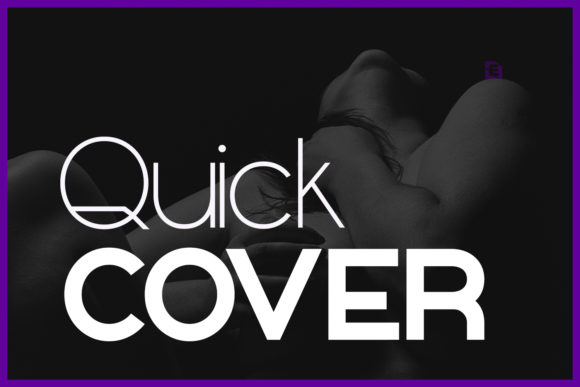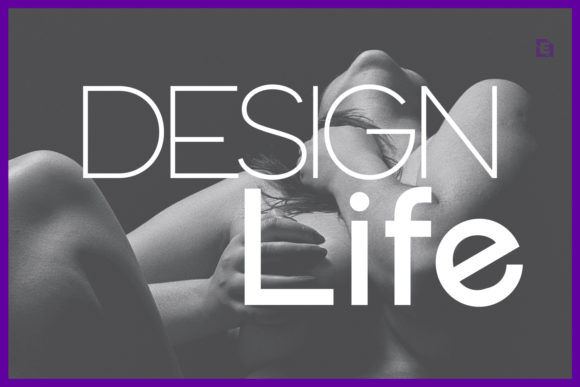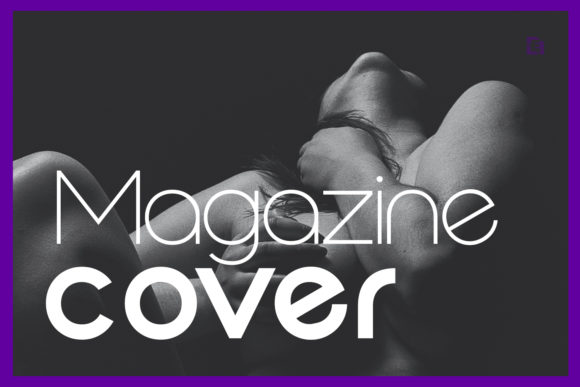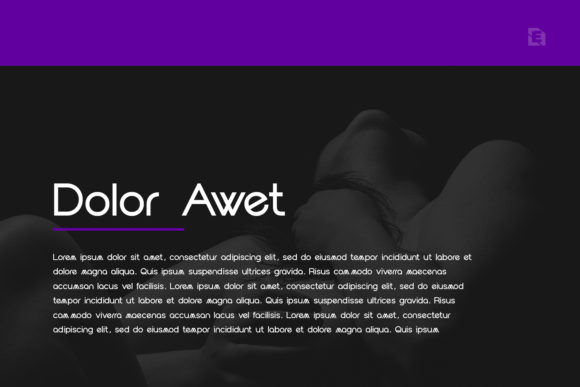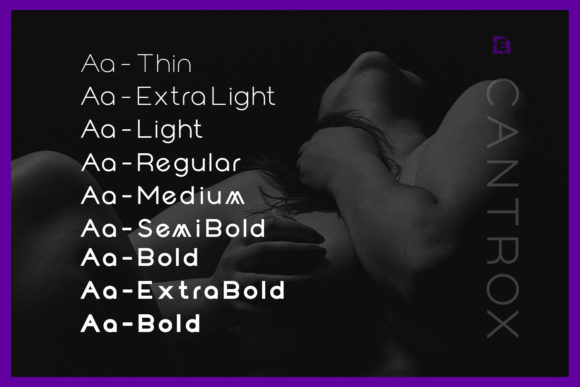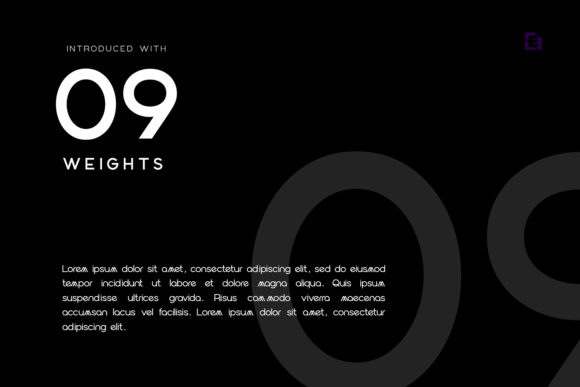
The Designer’s Delight: Cantrox Font
Cantrox is a minimal and neat display font that can easily be matched to an incredibly large set of projects. Its versatility and unique charm make it a perfect addition to your creative arsenal. In this article, I’ll share my honest review, a practical guide on how to use it, and some valuable insights into this amazing font.
What I Love About Cantrox Font ✨
- ✅ Clean and Minimal Design: Cantrox boasts a sleek, modern design that’s perfect for headlines, titles, and short texts.
- ✅ Highly Versatile: This font can be used for a wide range of projects, from branding and advertising to packaging and digital media.
- ✅ Elegant and Sophisticated: Cantrox exudes a sense of elegance and sophistication, making it perfect for high-end brands and luxury products.
- ⚠️ Limited Use for Body Text: While Cantrox is perfect for headlines and titles, it may not be the best choice for body text due to its minimalist design.
- ⚠️ Requires Attention to Kerning: As with any font, attention to kerning is crucial to ensure that Cantrox looks its best.
Cantrox Font was designed with the modern designer in mind. Its creator, a talented typographer, aimed to craft a font that’s both elegant and versatile. The design process involved a lot of experimentation and refinement to achieve the perfect balance of form and function.
| Font Name | Cantrox Font |
| Author | Design Stag |
Q: What is Cantrox Font best used for?
A: Cantrox Font is best used for headlines, titles, and short texts where a modern and elegant look is desired.
Q: Is Cantrox Font suitable for body text?
A: While Cantrox Font can be used for body text, it may not be the best choice due to its minimalist design.